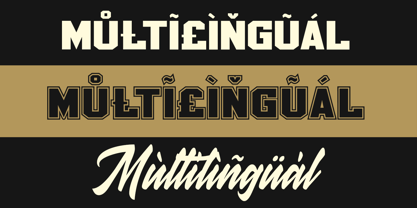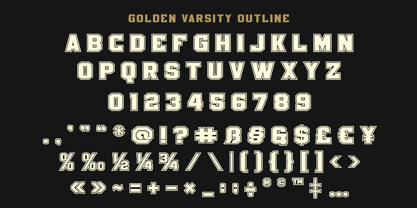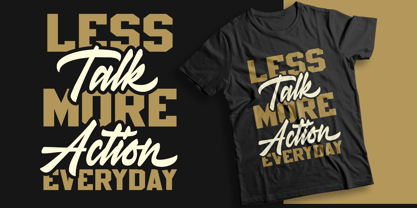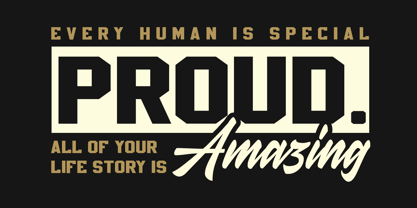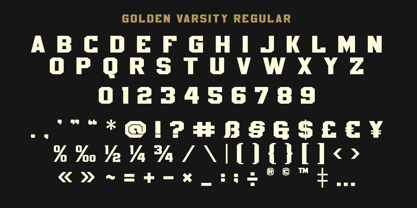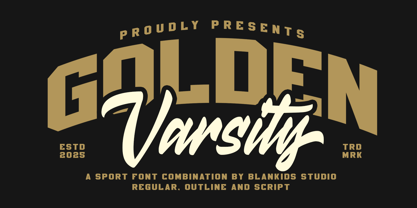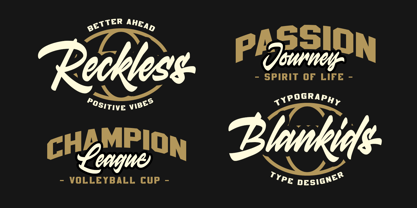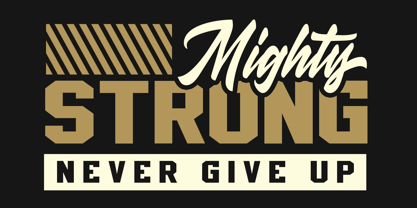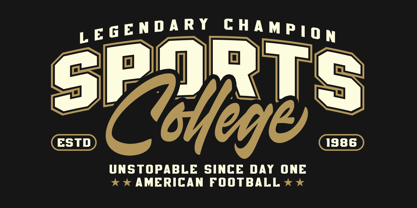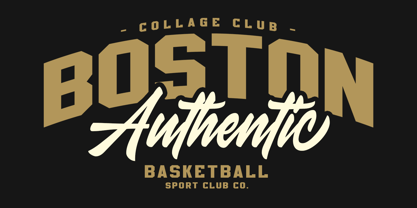
Golden Varsity
by Blankids
The Golden Varsity Font Family was designed by Bangkit Tri Setiadi and published by Blankids. Golden Varsity contains 3 styles and family package options. More about this family
Hello, awesome people! This time, we have a new font called Golden Varsity a Sport Font Combination by Blankids Studio.
Golden Varsity a Sport Font Combination is made for any professional project branding, such as logotype, watermarks, poster, branding, promotions, product packaging, etc. Every letter has a college sporty and varsity style design. This font comes in 3 font combination.
Golden Varsity font includes a full set of college sporty uppercase and lowercase letters, numerals and punctuation. This font has a retro sporty style. See the previews above to get some inspiration on how to use them. Happy designing!